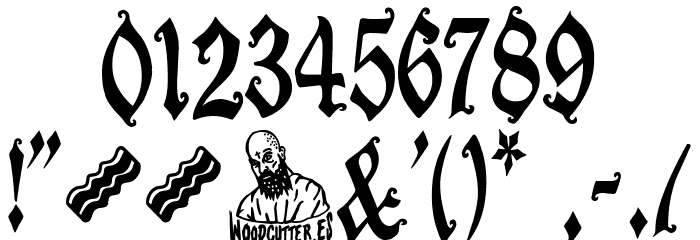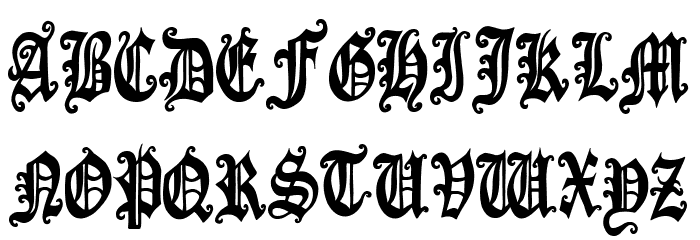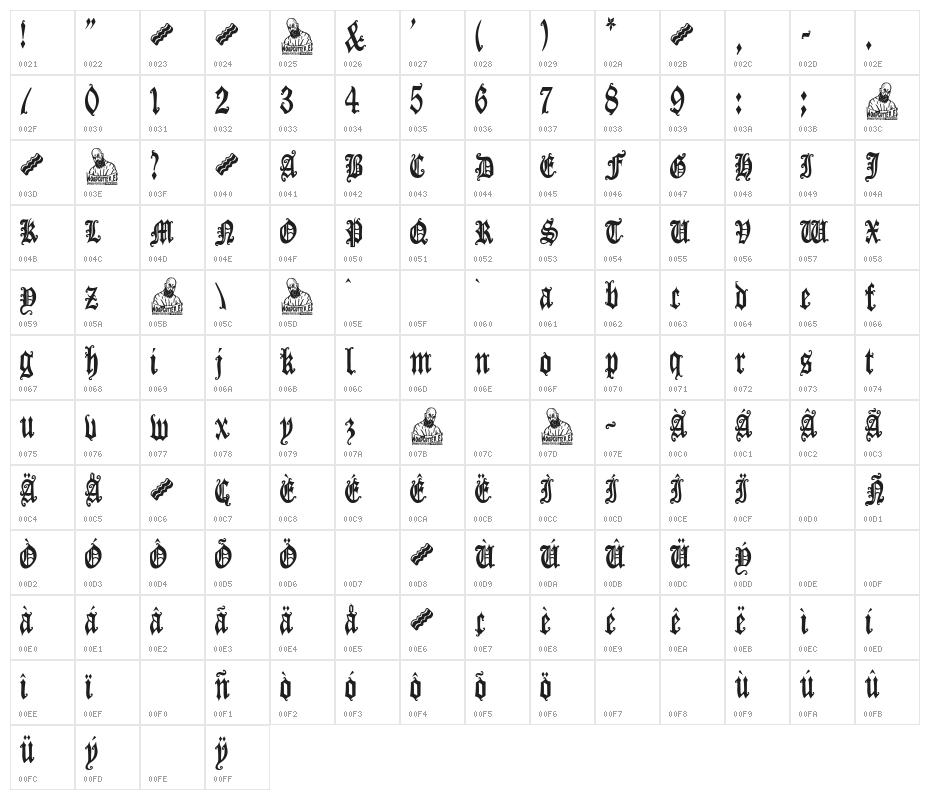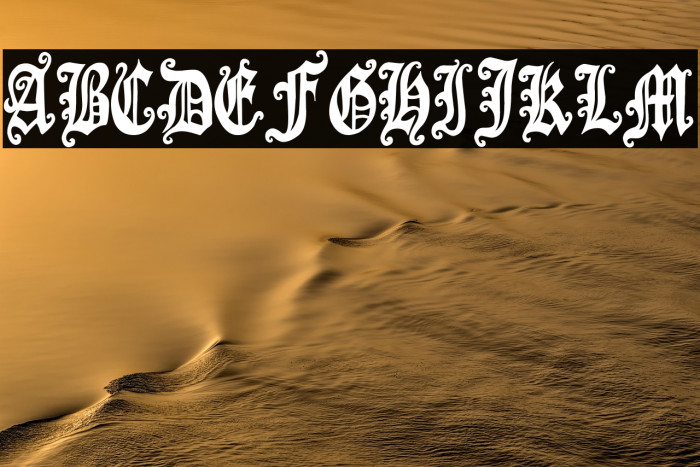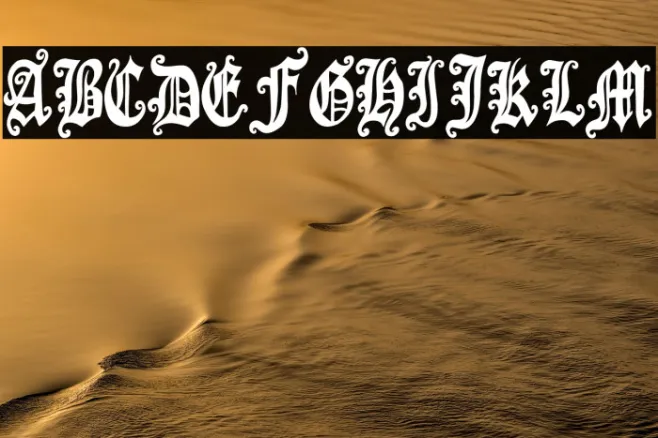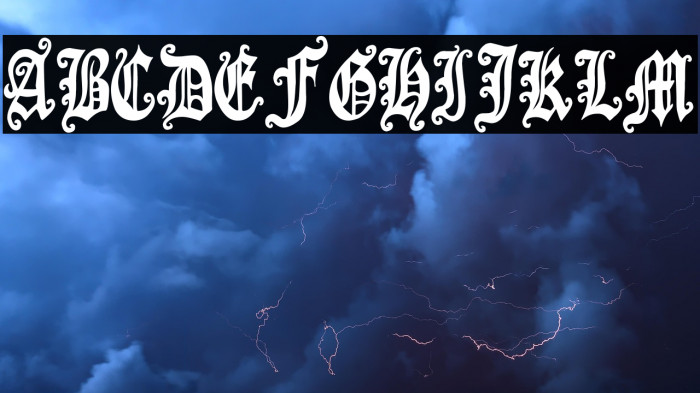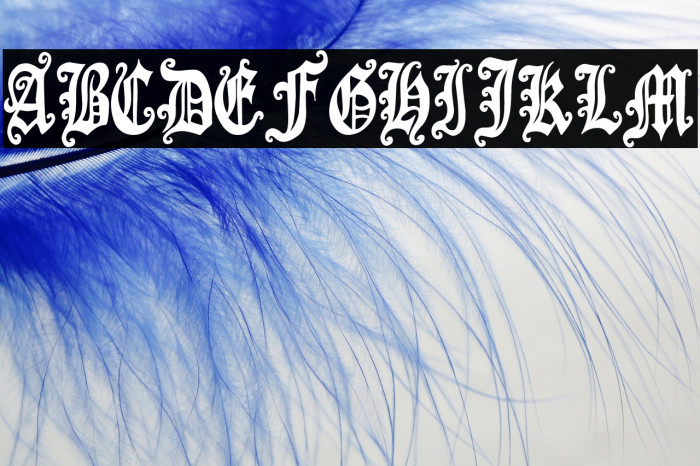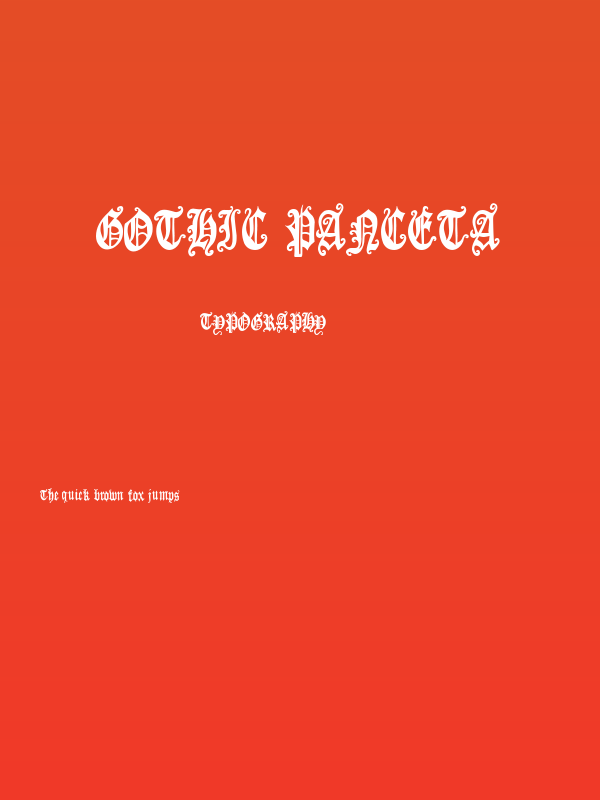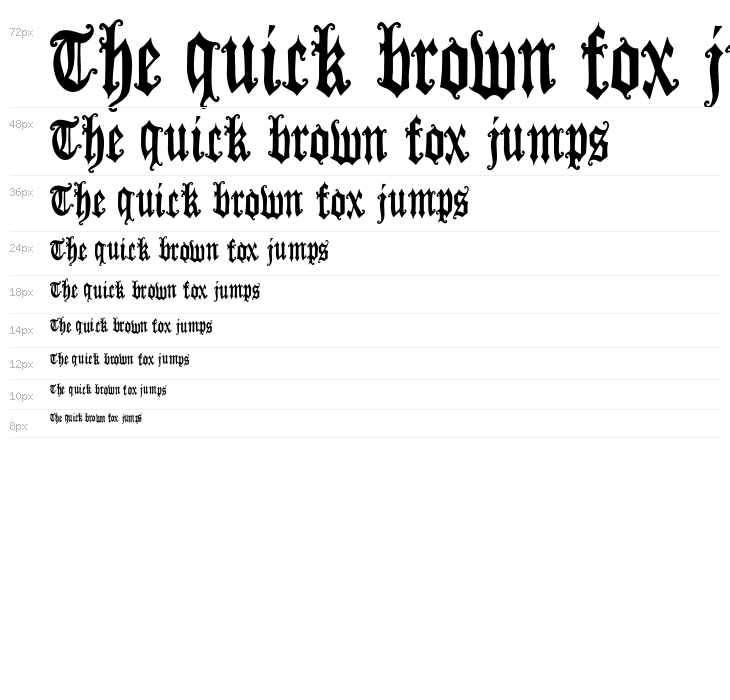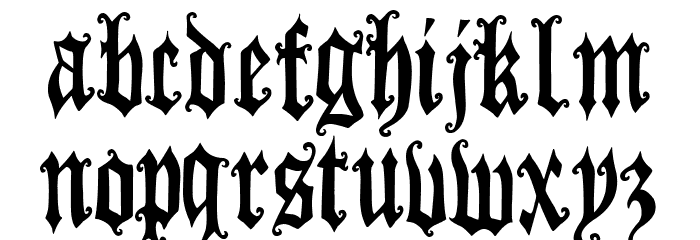
Gothic Panceta Font
Gothic Panceta Description
This font features a bold and intricate design reminiscent of traditional Gothic script. The characters are adorned with elaborate flourishes and sharp angles, giving them a dramatic and ornate appearance. The uppercase letters are particularly striking, with their pronounced serifs and decorative elements. The lowercase letters maintain the same level of detail, ensuring consistency across the typeface. Numbers and special characters are equally stylized, making this font suitable for projects that require a historical or medieval aesthetic.
| Proposed Projects | Ideal for historical documents, medieval-themed designs, book covers, and decorative signage. |